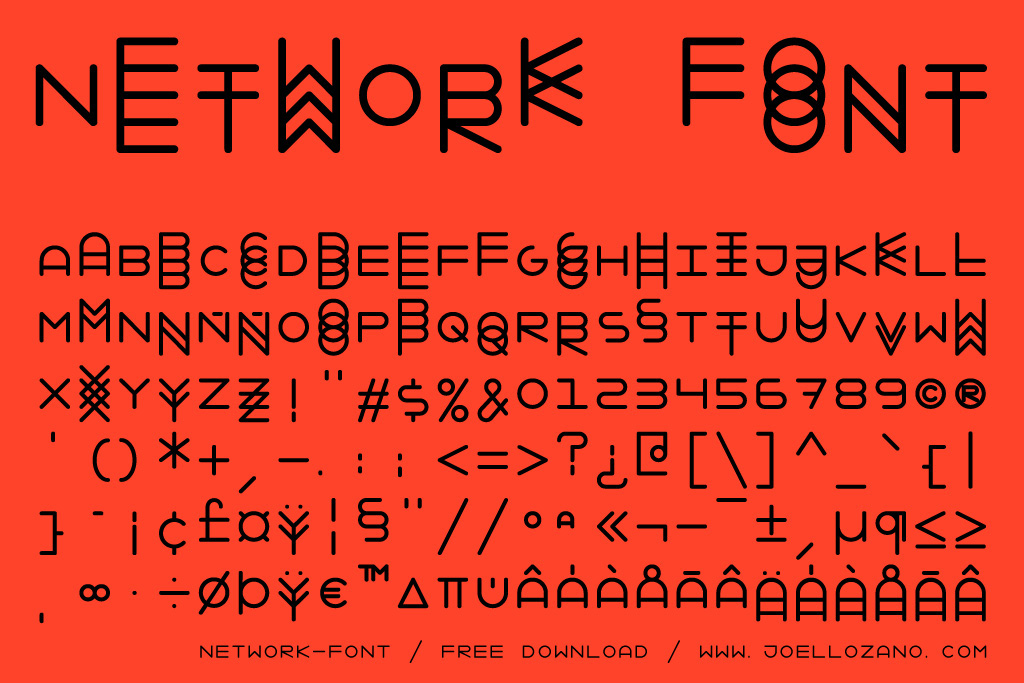
Network Font
Monospace free font
NETWORK FONT
Description:
Network Font is a Display Monospace Typography, created under the claim of Absolut
Network "Join. Create. Share" based on the concept of unity, which may be
shared for free.
Network Font es una Tipografía Display Monospace, creada bajo el lema de Absolut
Network "Únete. Crea. Comparte", basada en el concepto de unión y que podrá ser
compartida de manera gratuita.